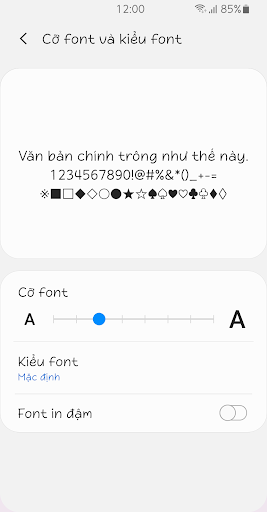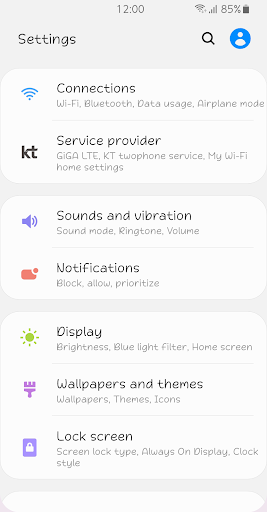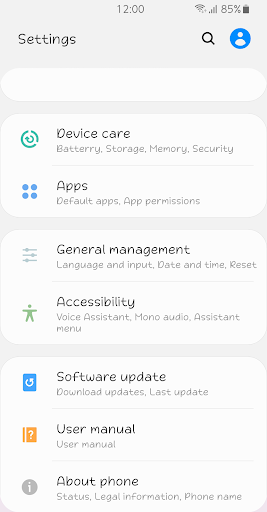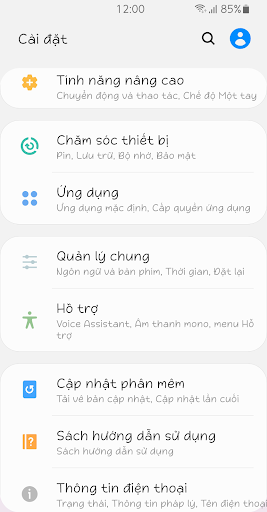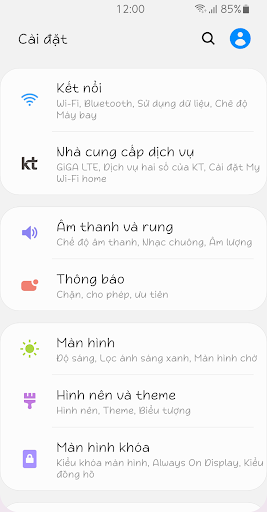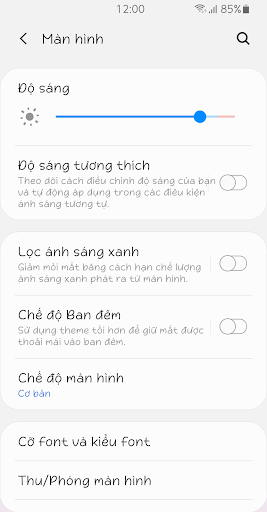
ZF Reality
This font features a cute handwriting style with even thickness.
The comfort of the natural form and the shape without decoration evoke warm feelings.
The realistic expressions and soft stroke movements are cute and lovely.
Your smile that I've only seen in my dreams is no longer a fantasy.
You're next to me like this.
I'll be with you forever. This is the reality.